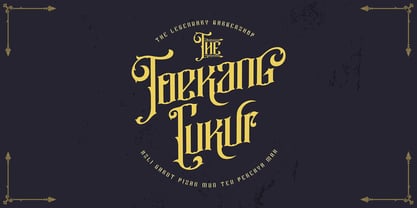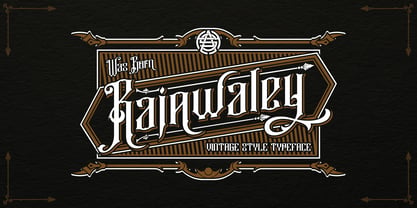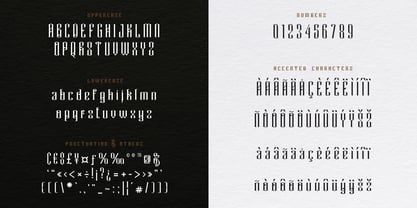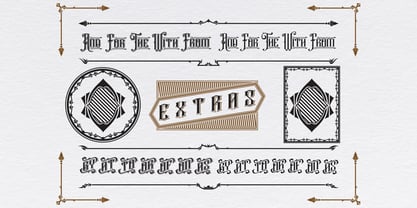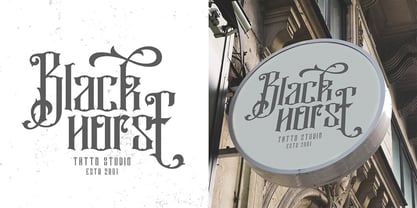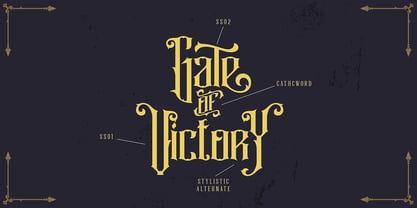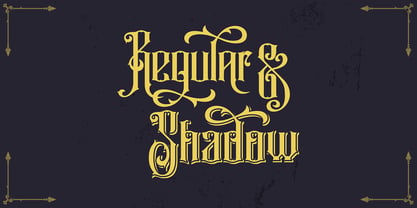
Rajawaley
by HengzArt Studio
The Rajawaley Font Family was designed by Nuryana Fajartama and published by HengzArt Studio. Rajawaley contains 2 styles and family package options. More about this family
Welcome to Rajawaley Typeface, a creation of timeless elegance that comes in two distinct styles: Regular and Drop Shadow. This typeface drinks inspiration from the age-old charm of breweries and beer, bringing a vintage classic character to your palette of design tools. With the possibility of mixing and matching the layered font with the addition of Extras Ornament, crafting those quintessential vintage designs become the effortless work of moments.
Rajawaley is a versed accomplice in creating immersive branding, charming logos, memorable product packaging, inviting invitations, inspirational quotes, appealing t-shirts, and captivating label posters among other design applications. Its versatility makes it a fitting choice for those desiring a touch of yesteryears in their design creations.
Feature:
- Character Set A-Z (Uppercase & Lowercase)
- Numerals & Punctuations
- Accents (Multilingual characters)
- Stylistic Alternates
- ss01, ss02
Designers: Nuryana Fajartama
Foundry: HengzArt Studio